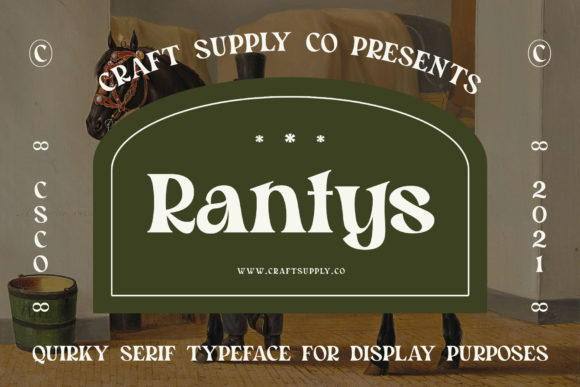
Adorn your designs with the allure of Rantys, a captivating serif font family that exudes character and elegance. Its thick, bold strokes command attention, adding a touch of sophistication and uniqueness to your creative endeavors. Whether you're crafting logos, branding materials, or eye-catching headlines, Rantys will elevate your designs to new heights, leaving a lasting impression on your audience.
Experience the versatility of Rantys, a font that effortlessly adapts to a myriad of design styles. Its bold presence lends itself perfectly to logos, demanding attention and leaving an indelible mark in the minds of your customers. For branding projects, Rantys's distinctive character adds a touch of exclusivity, setting your brand apart from the competition. Unleash your creativity and explore the endless possibilities that Rantys holds, transforming your designs into captivating masterpieces.
Immerse yourself in the world of Rantys, a font that sparks imagination and ignites creativity. Its thick, prominent letters exude a sense of authority and confidence, making it the perfect choice for headlines that demand attention. Whether you're crafting marketing materials, social media posts, or website designs, Rantys will elevate your words, captivating your audience and leaving them eager for more.
With Rantys, the possibilities are boundless. Its timeless charm lends itself beautifully to wedding invitations, adding a touch of elegance and romance to your special day. Create personalized cards and stationery that reflect your unique style, or design enchanting posters and flyers that capture the essence of your event. Let Rantys be your creative companion, guiding you towards designs that resonate with your audience and leave a lasting impression.
Step into the world of Rantys and discover a font that's more than just a collection of letters; it's an expression of your individuality and creativity. With its bold strokes and distinctive character, Rantys transforms ordinary designs into extraordinary works of art. Embrace the power of Rantys and watch as your designs captivate and inspire, leaving an indelible mark on the world.